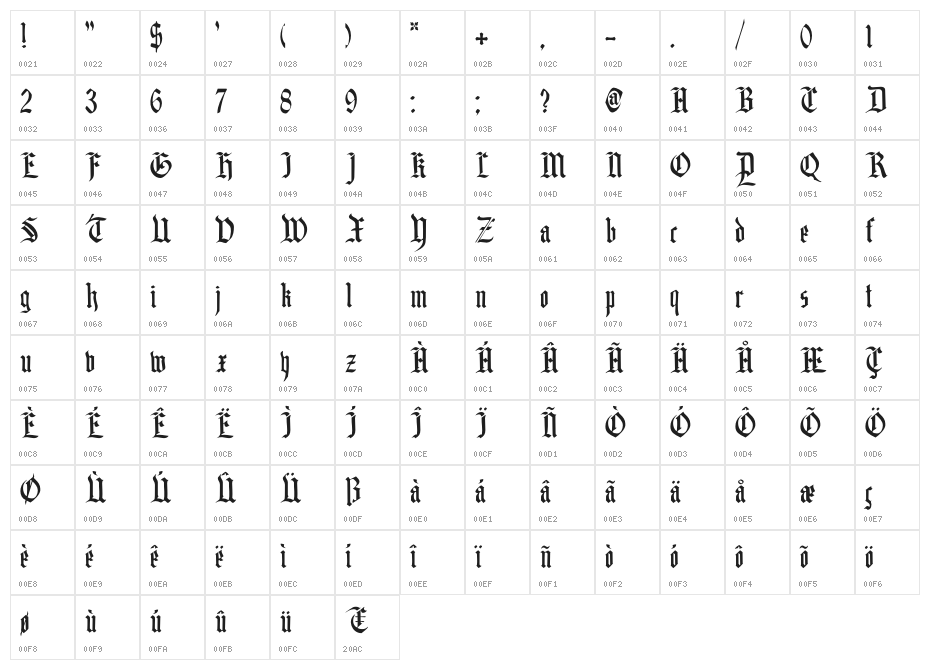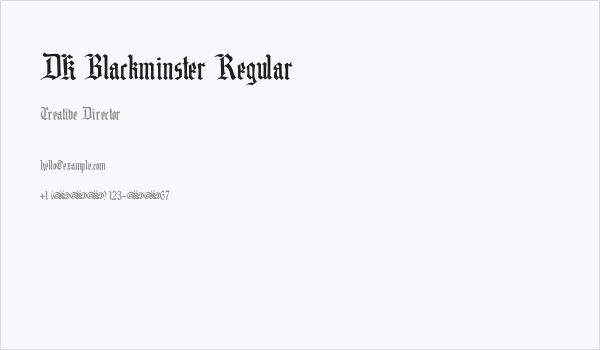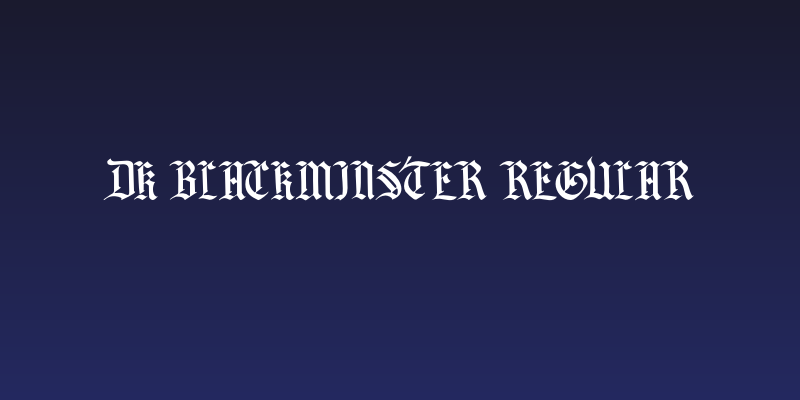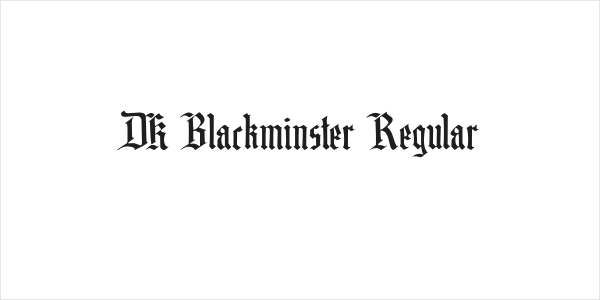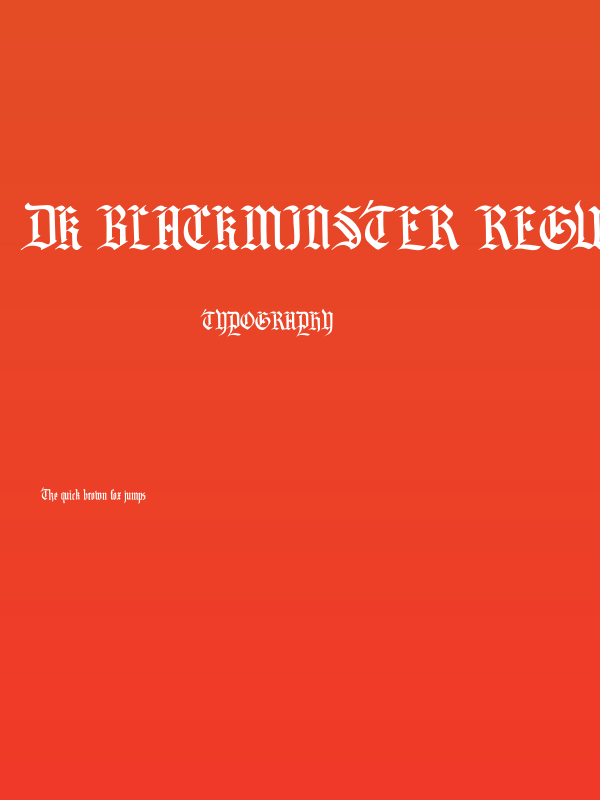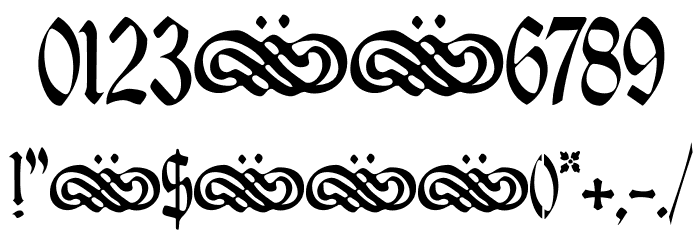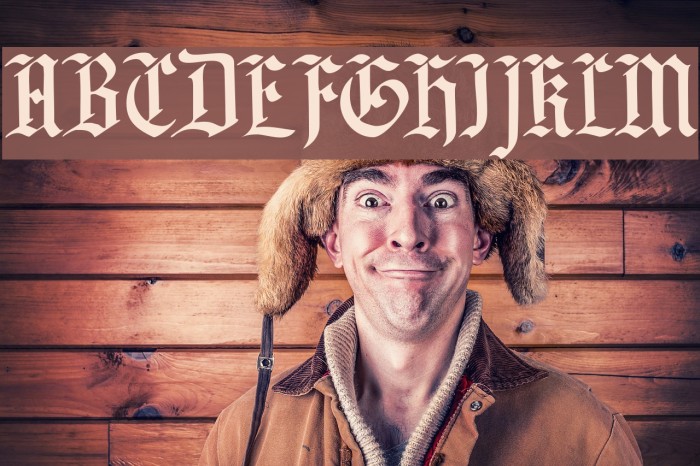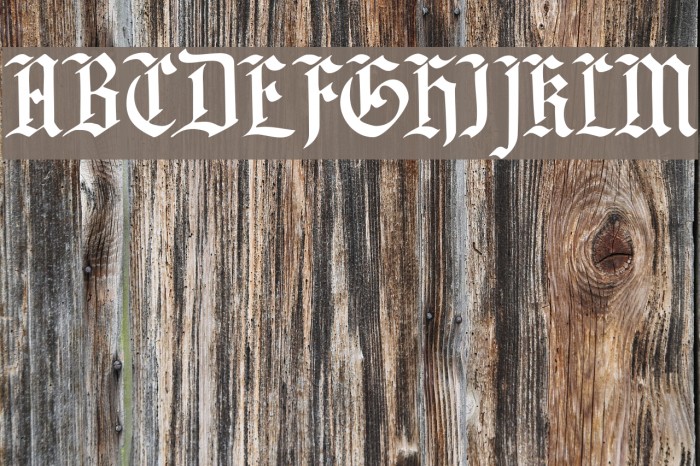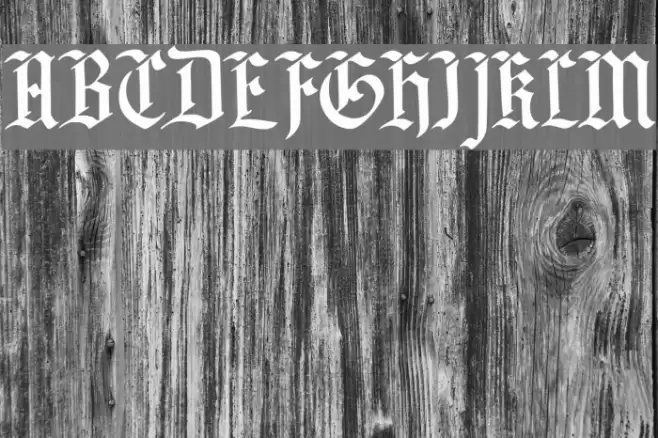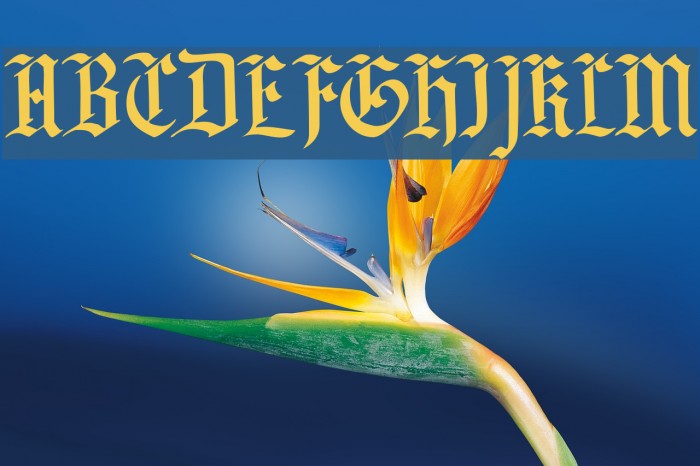
DK Blackminster Regular Font
DK Blackminster Regular Description
This font exhibits a classic Blackletter style, characterized by its intricate and ornate design. The letters are sharply angular with dramatic flourishes, reflecting a historical and traditional aesthetic. The uppercase letters are particularly elaborate, featuring pointed serifs and decorative elements that enhance their Gothic appearance. The lowercase letters maintain the same stylistic traits, though they are slightly more restrained in their embellishments. Numbers and special characters follow suit, with a consistent use of bold strokes and intricate detailing. This font is reminiscent of medieval manuscripts and evokes a sense of antiquity and formality.
| Overall Style | Vintage |
| Use Case | Logos, Headlines, Decorative purposes |
| Proposed Projects | Ideal for historical documents, certificates, book covers, and branding that requires a traditional or medieval touch. |